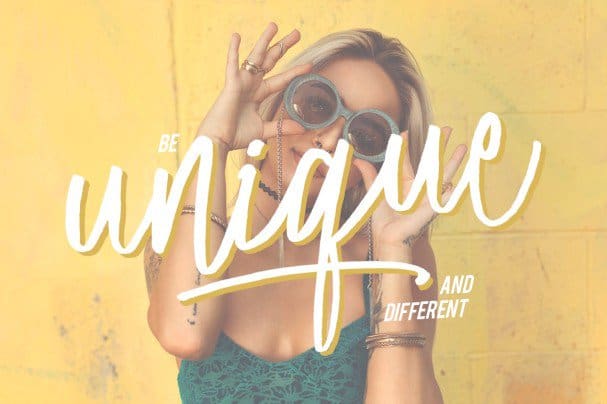
Feminim Script Font
Feminim Script Font is an idea for its script typeface. This is extensively hired for agency use. This font is considered for its text generator function.
It has grown to be as speedy as created for the number one time in 1953 thru the author in the mud the same as the creepy regular font.
Style Of Feminim Script Font Free